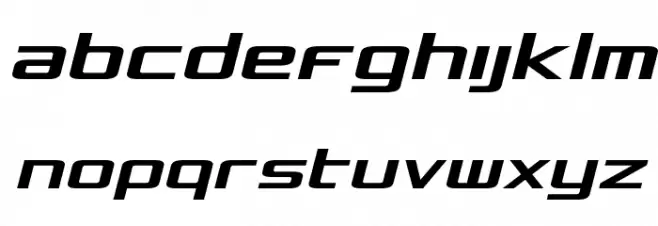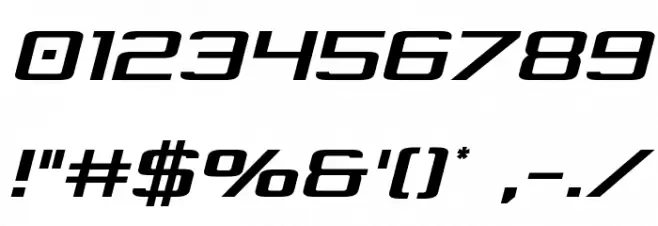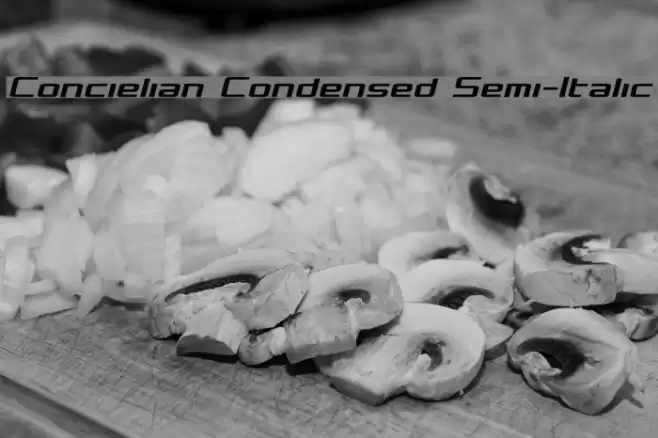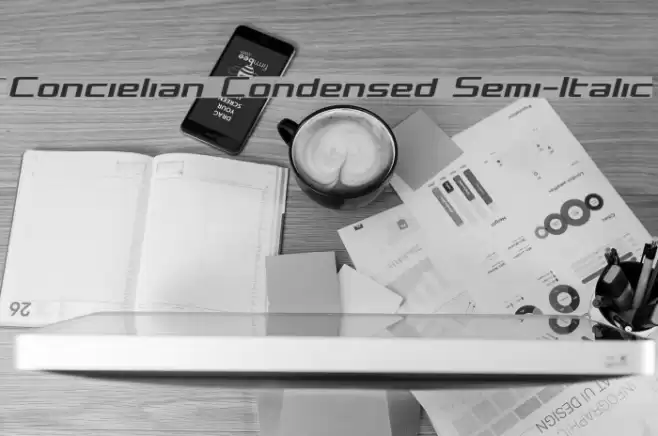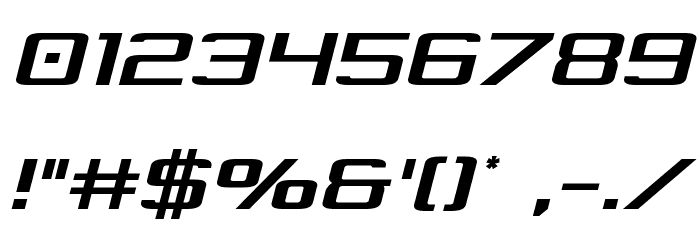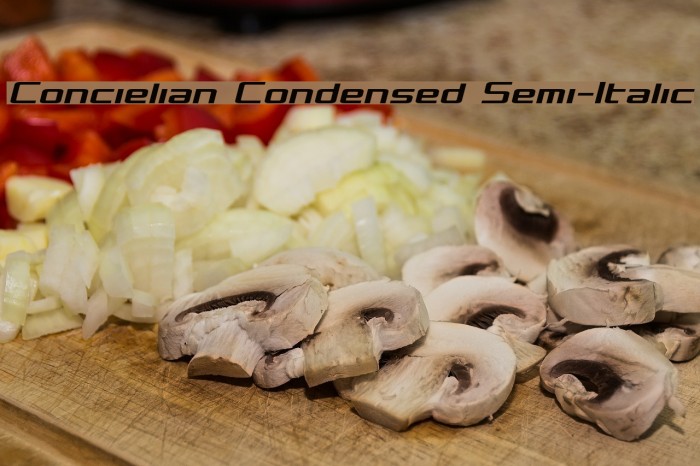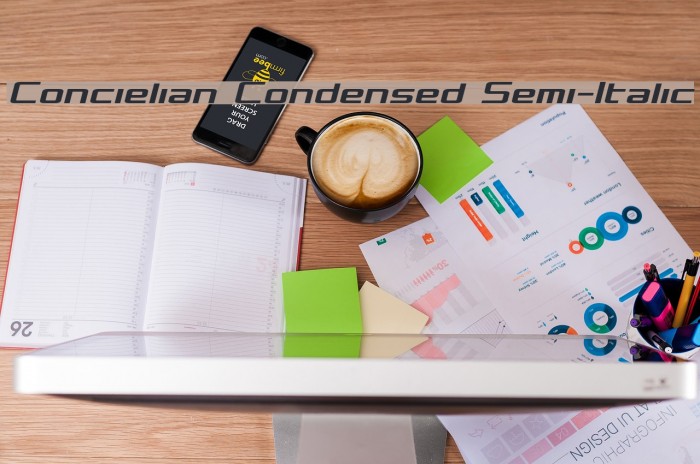
Concielian Condensed Semi-Italic
This font features a sleek, modern design with a condensed and semi-italic style. The characters are slightly slanted, giving a dynamic and forward-moving appearance. The strokes are uniform with medium contrast, contributing to a clean and professional look. The uppercase and lowercase letters maintain a consistent height, enhancing readability. The numbers and special characters are designed to match the overall aesthetic, ensuring a cohesive appearance across different uses. This font is ideal for projects that require a contemporary and stylish touch.
A modern, condensed, semi-italic font with medium contrast and sleek design.
- Proposed Projects: Suitable for branding, advertising, modern web design, and editorial layouts.
- Width: Condensed
- Use Case: Headlines, Logos, Branding